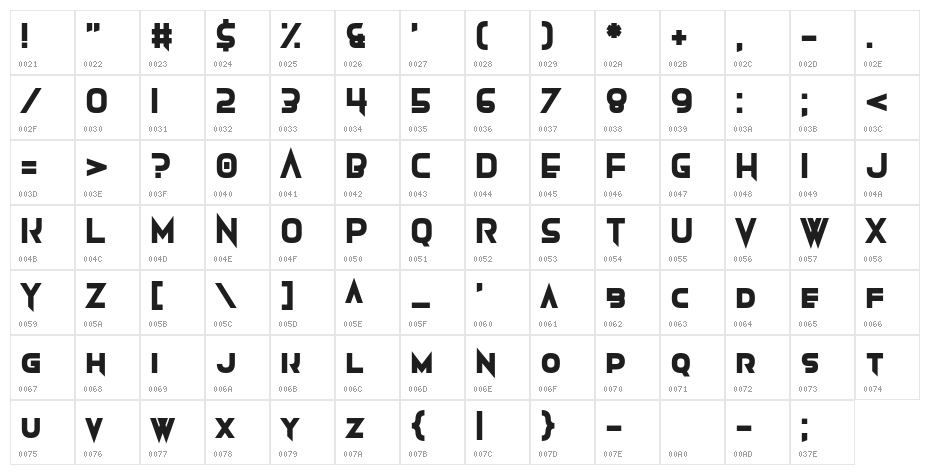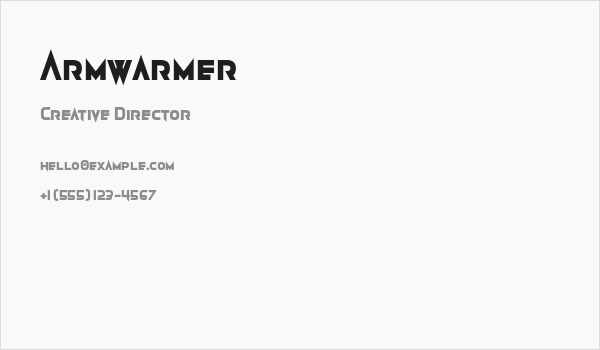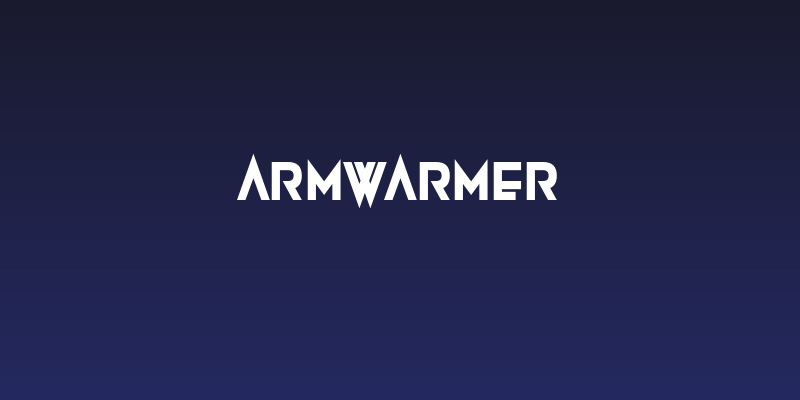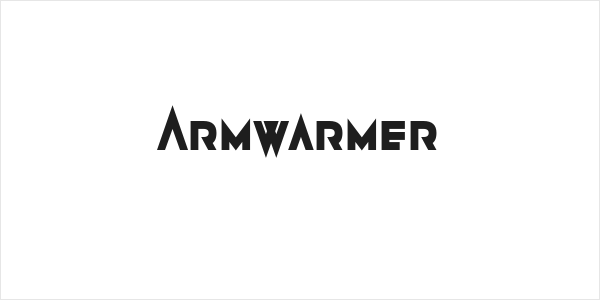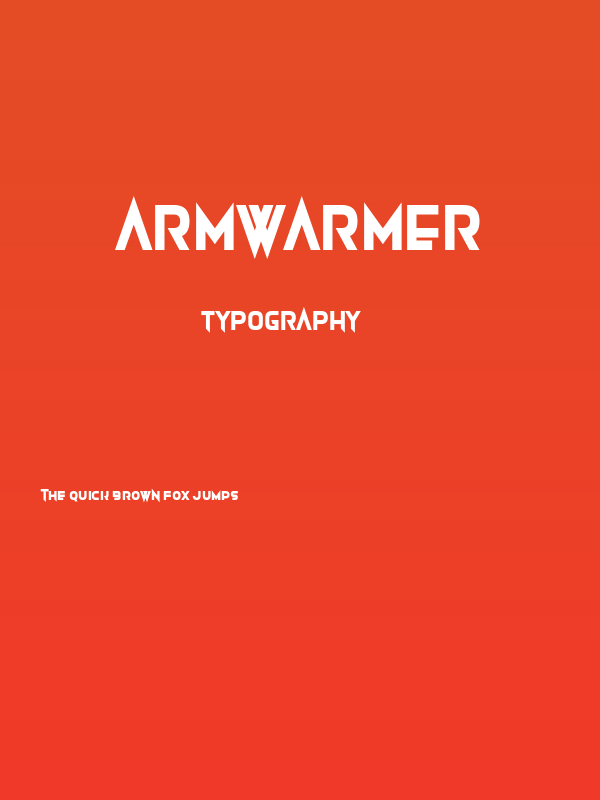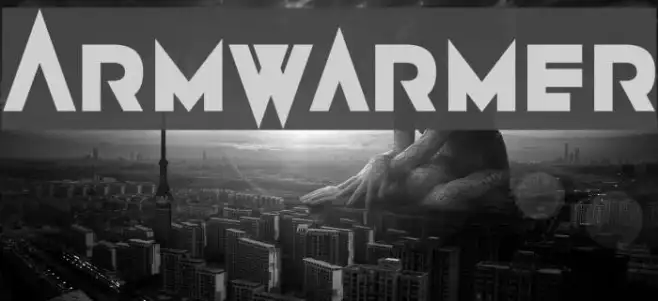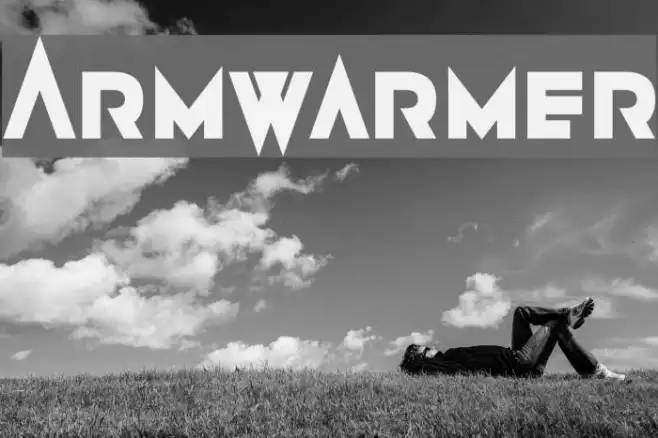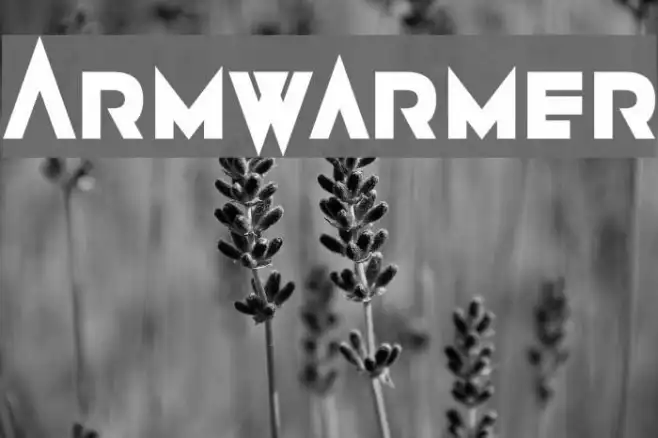
Armwarmer Font
Armwarmer Description
This font features a bold and geometric design with sharp angles and a futuristic aesthetic. The characters are uniformly thick, providing a strong visual impact. The uppercase letters have a distinct angular cut, giving them a modern and edgy look. The lowercase letters maintain the same boldness, ensuring consistency across the typeface. Numbers are equally bold and follow the same geometric style, making them highly legible. Special characters are designed to match the overall aesthetic, with clean lines and sharp angles. This font is ideal for projects that require a modern and assertive appearance.
| Proposed Projects | Ideal for branding, posters, video game graphics, and tech-related designs. |